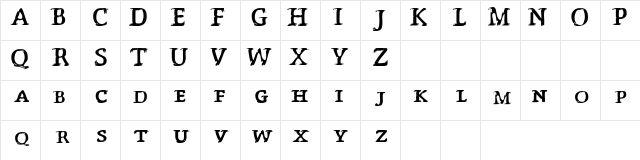
P峤ttning Regular
P峤ttning takes a measured approach to typography — its balanced proportions and neutral character make it a reliable workhorse for both digital and print work.